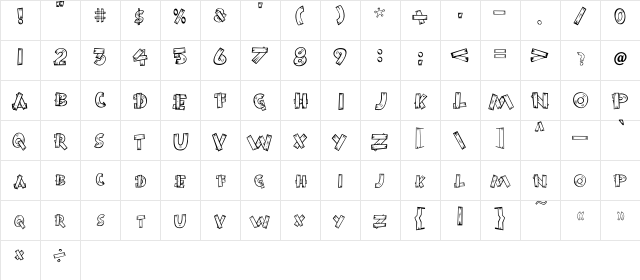
Mangrio_Aziz_Dharejo_Dedar_Wood Regular Font Preview
Mangrio_Aziz_Dharejo_Dedar_Wood Regular
| Designer | Abdul Aziz Mangrio |
Design Context for Mangrio_Aziz_Dharejo_Dedar_Wood Typeface
Mangrio_Aziz_Dharejo_Dedar_Wood echoes the hand-painted signage and woodblock typography of the American frontier, with a warm, rugged personality.
Perfect for barbecue restaurants, country music branding, vintage poster design, and rustic packaging.
Font Pairing: Combine Mangrio_Aziz_Dharejo_Dedar_Wood with a simple slab or neutral sans — period-accurate companions reinforce the vintage feel without competing for attention.
Pro Tip: Pair Mangrio_Aziz_Dharejo_Dedar_Wood with aged textures or distressed backgrounds to amplify its vintage personality.